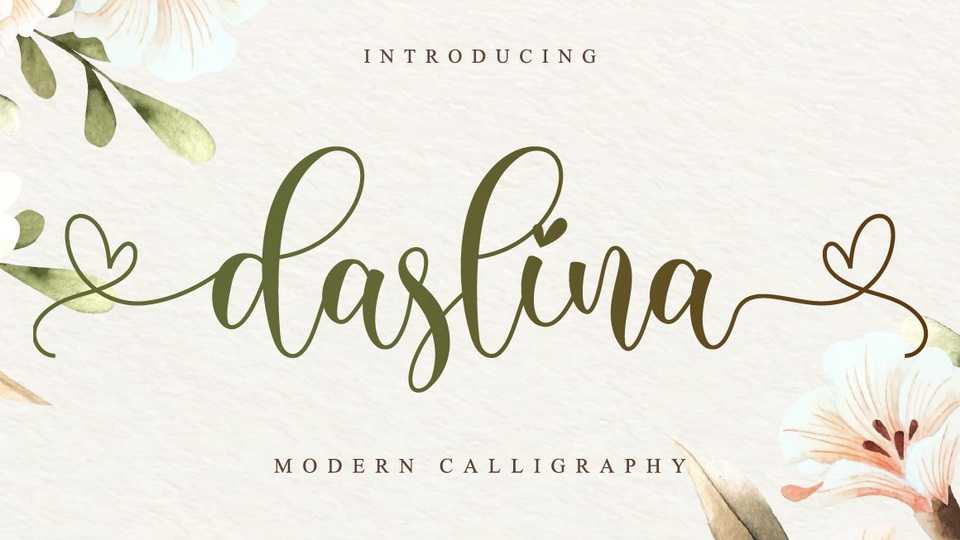
Download Daslina font, a beautiful script with a natural flow. Daslina has a classy, elegant, and modern look which can be used for logos, branding, invitations, stationary, wedding designs, social media posts, and every other design which needs a handwritten touch.